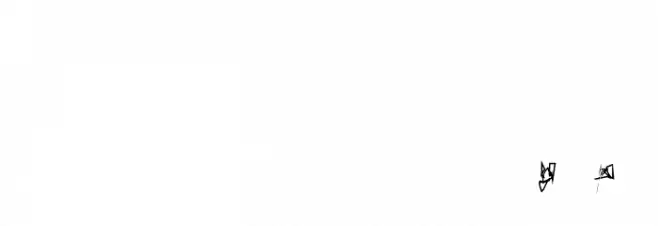
El alambre tfb Font
El alambre tfb Description
This font features a unique and intricate design that resembles barbed wire, giving it a rugged and edgy appearance. The letters are composed of sharp, angular lines that intertwine, creating a sense of complexity and texture. The overall look is bold and striking, making it ideal for projects that require a strong visual impact. The uppercase and lowercase letters maintain a consistent style, ensuring readability while still offering a decorative flair. The numbers and special characters follow the same design principles, providing a cohesive look across all elements.
A bold, barbed wire-inspired font with intricate, angular lines from Uncategorized fonts.
- Proposed Projects: Ideal for posters, album covers, or event flyers that require a bold, edgy aesthetic.